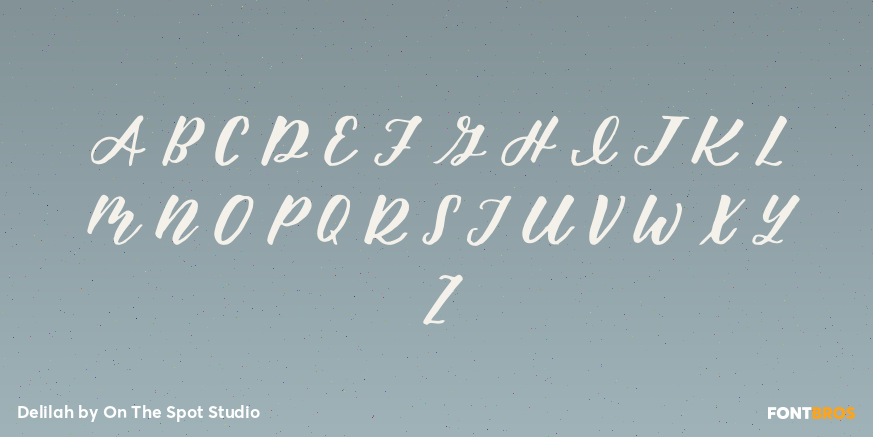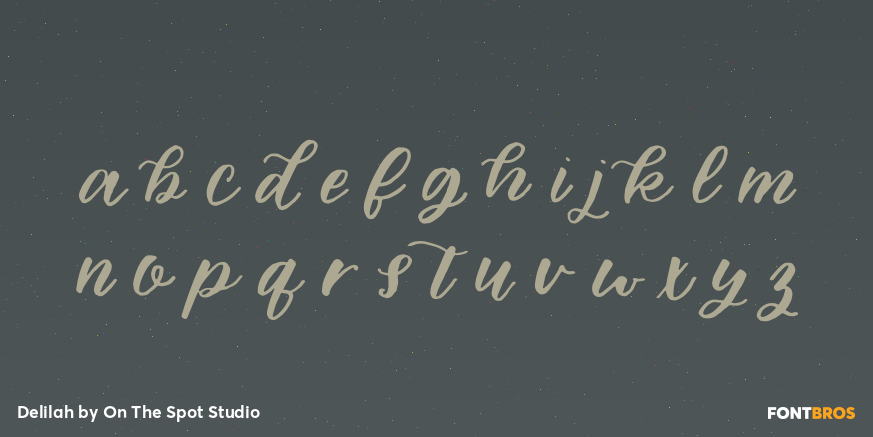
Delilah
Font Family by On The Spot Studio
Delilah is a hand lettered brush font with bonus alternates. Great for branding, journaling, scrapbooking, etc.